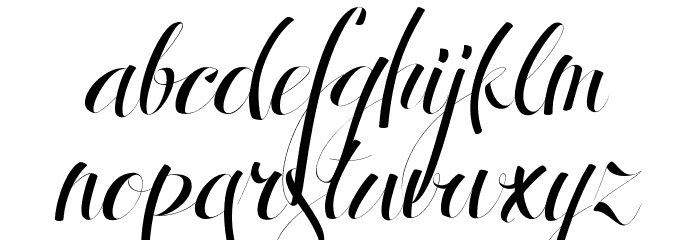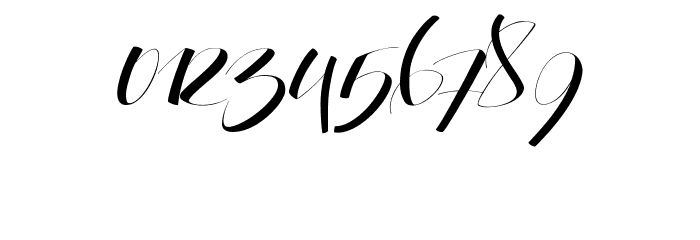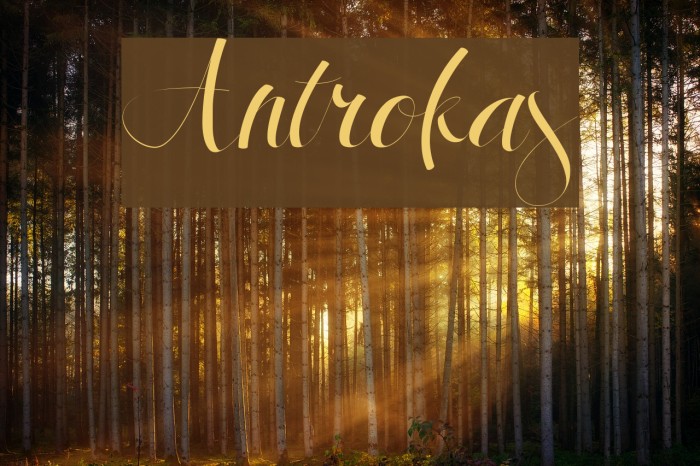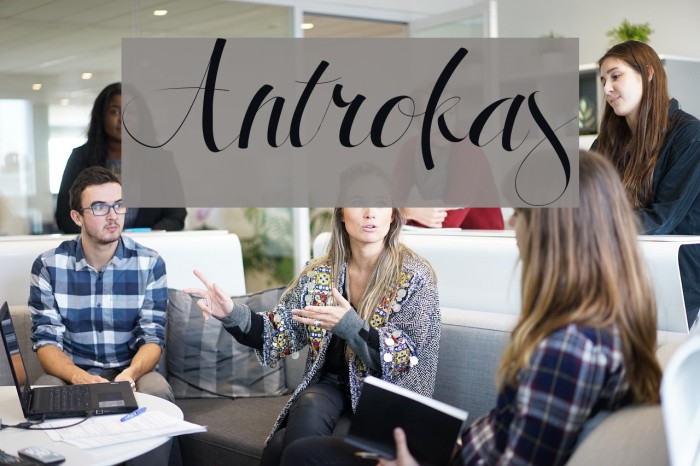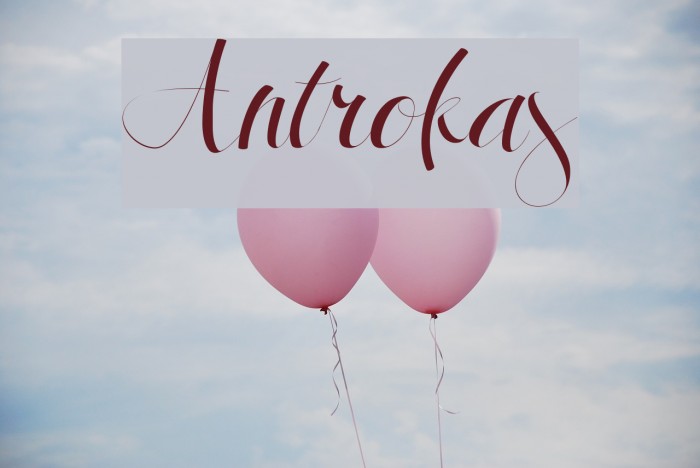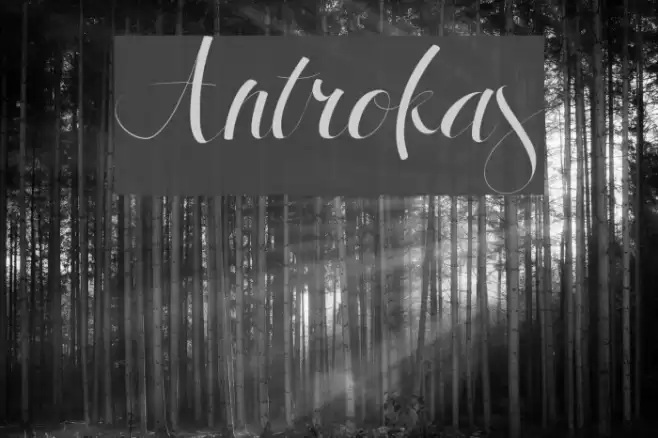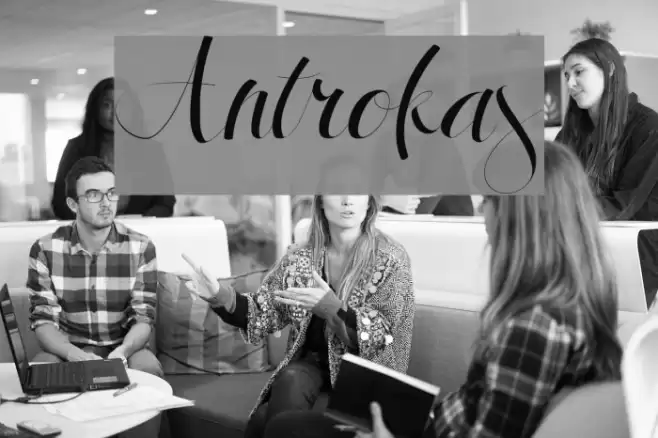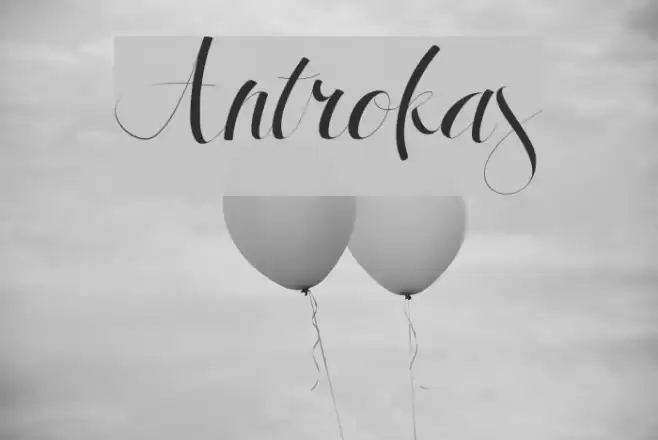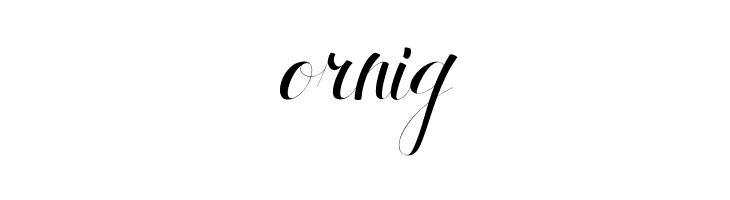
Antrokas Font
This elegant script font features flowing, cursive letters with a sophisticated and artistic flair. The uppercase letters are characterized by their sweeping curves and intricate loops, while the lowercase letters maintain a graceful continuity. The numbers are equally stylish, with a consistent slant and fluidity that matches the alphabet. This font exudes a sense of luxury and refinement, making it ideal for formal invitations, branding, and high-end product packaging. The overall design is both modern and timeless, with a delicate balance between bold strokes and fine lines.
An elegant and flowing script font with sophisticated curves and loops.
- Proposed Projects: Ideal for wedding invitations, luxury branding, elegant logos, and upscale packaging.
- Overall Style: Elegant, Sophisticated, Artistic
- Use Case: Invitations, Branding, Packaging